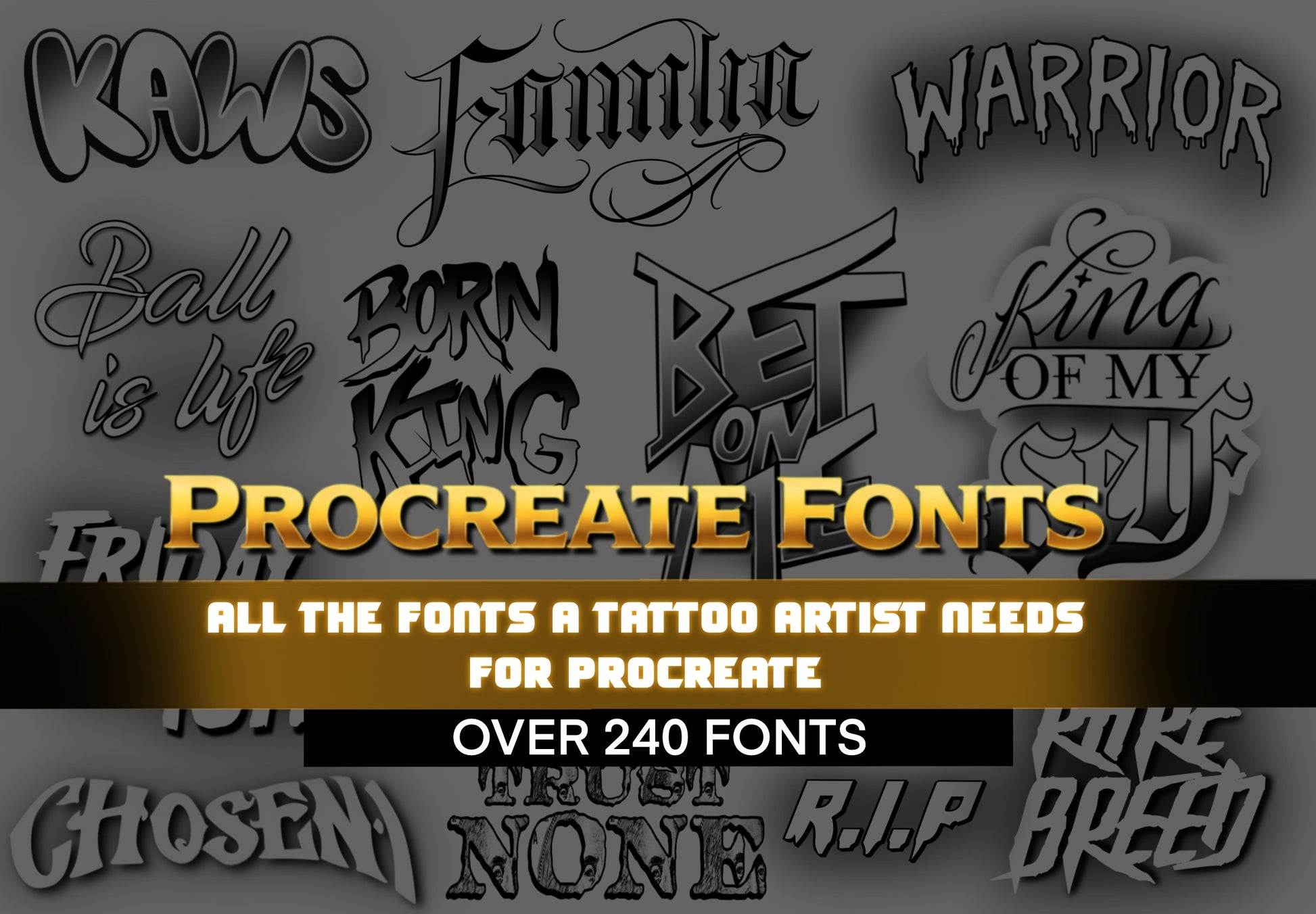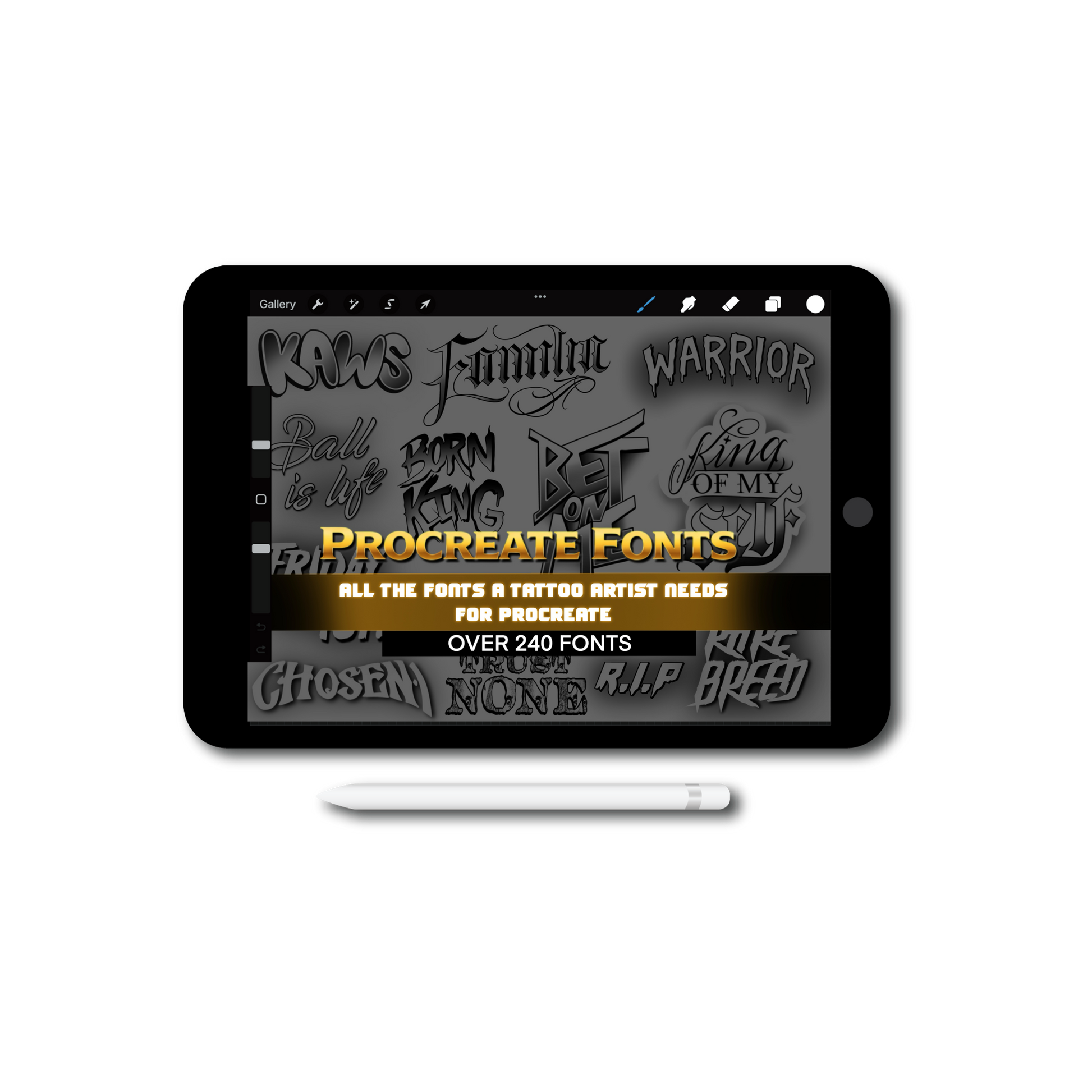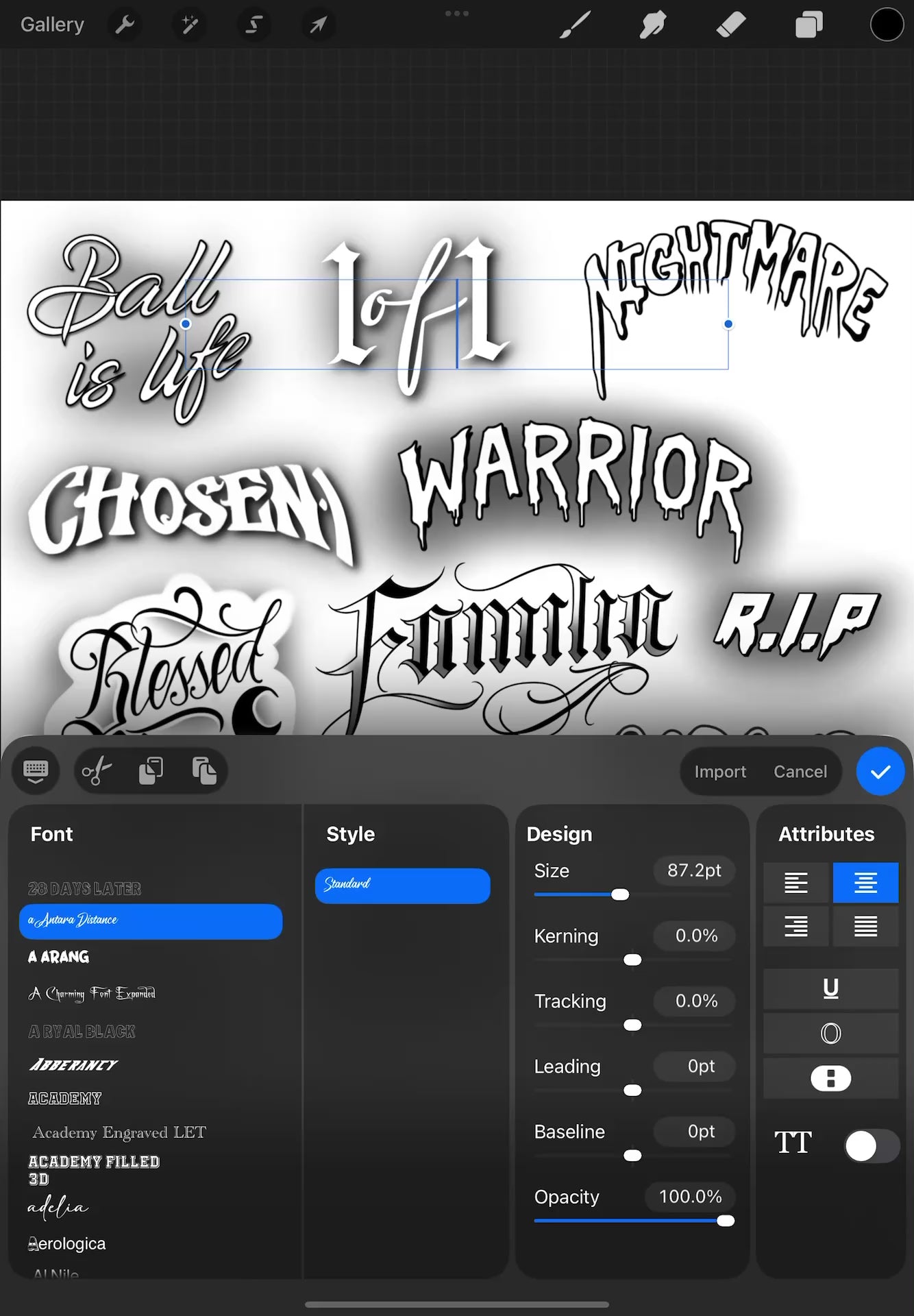
Procreate Fonts
Procreate Fonts Mega Pack
A massive font collection made for tattoo artists, featuring script, gothic, graffiti, bold, and specialty tattoo-style fonts. Perfect for names, quotes, and custom lettering.
Includes 240+ fonts for Procreate.